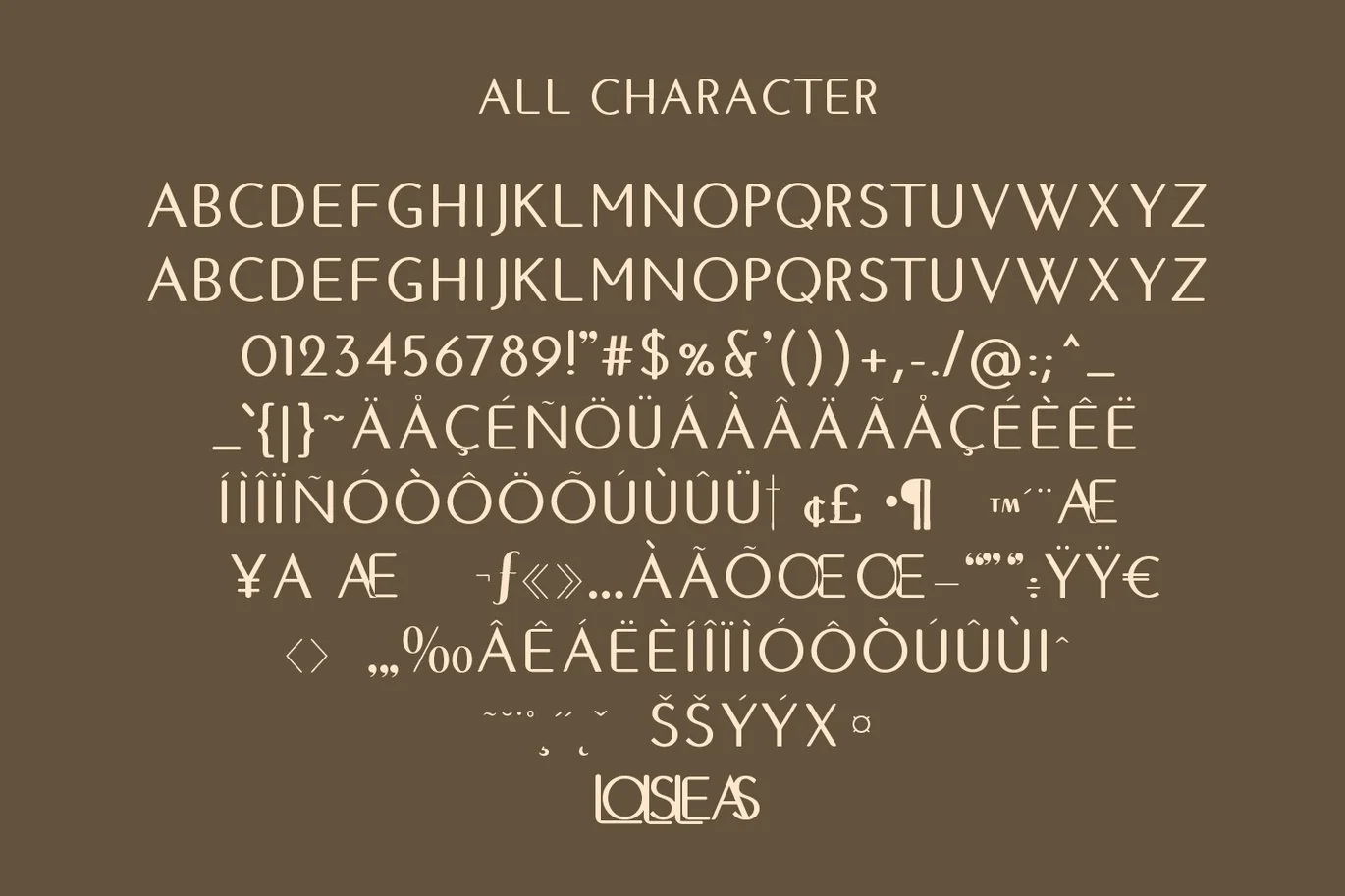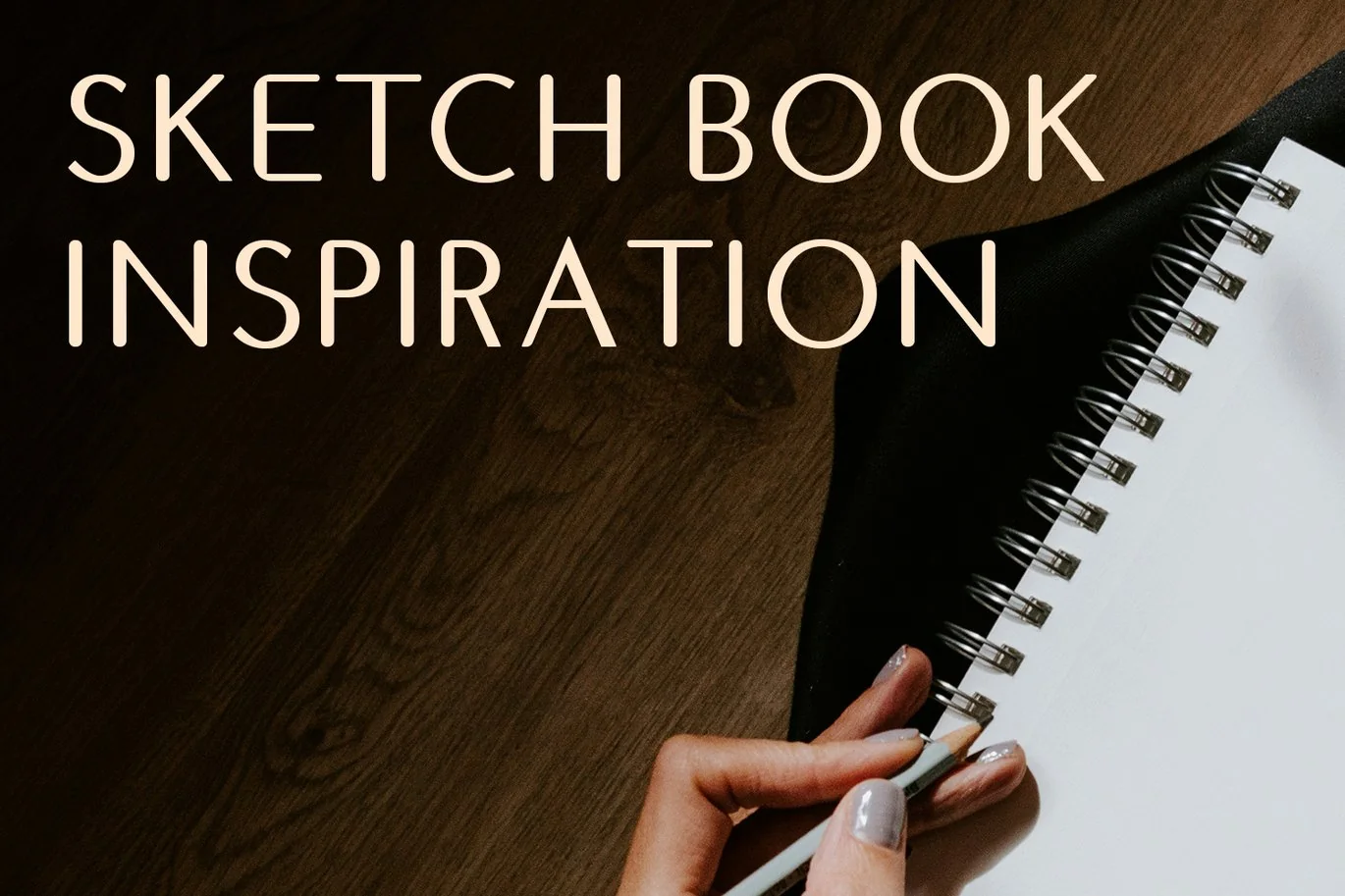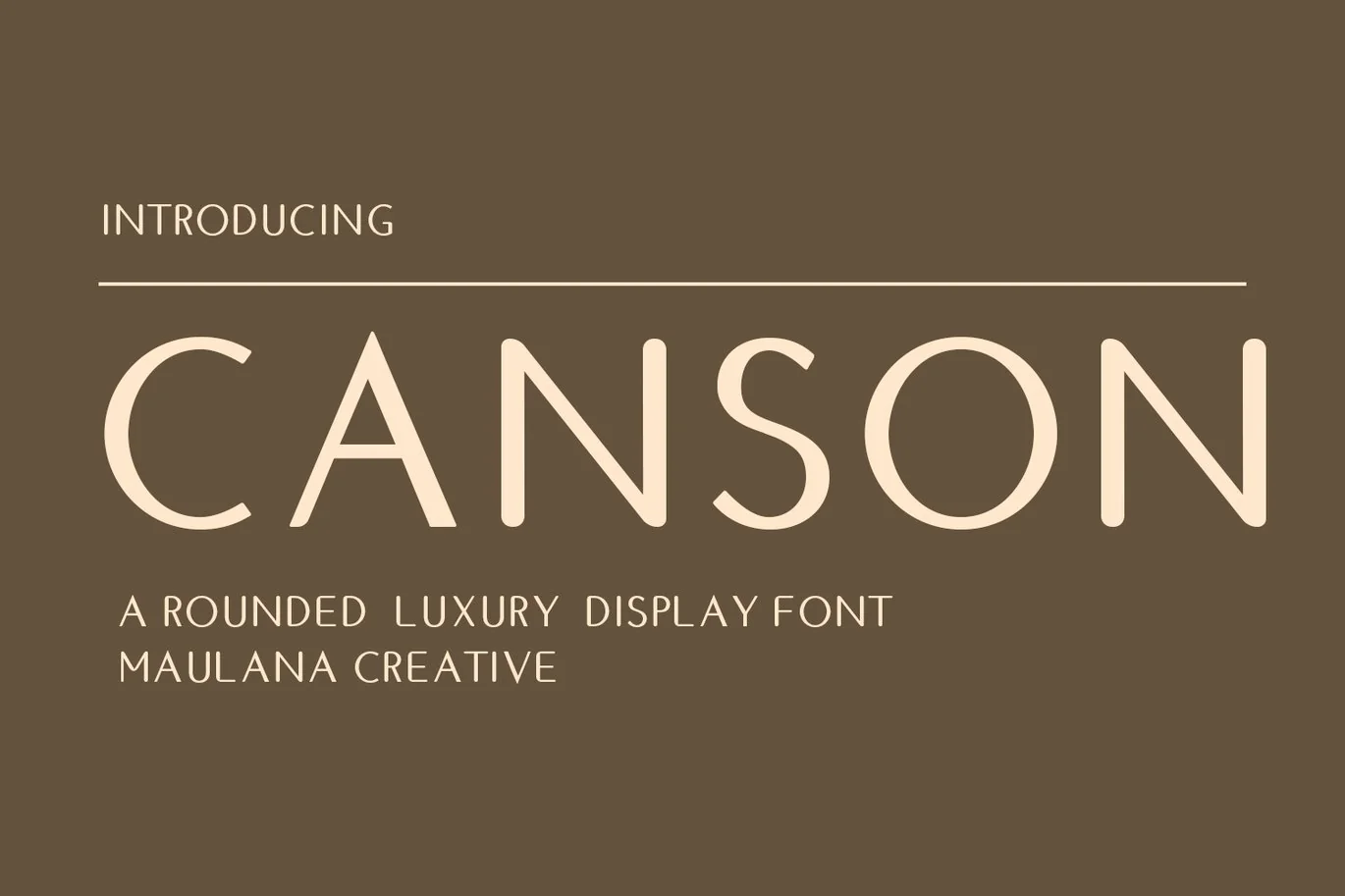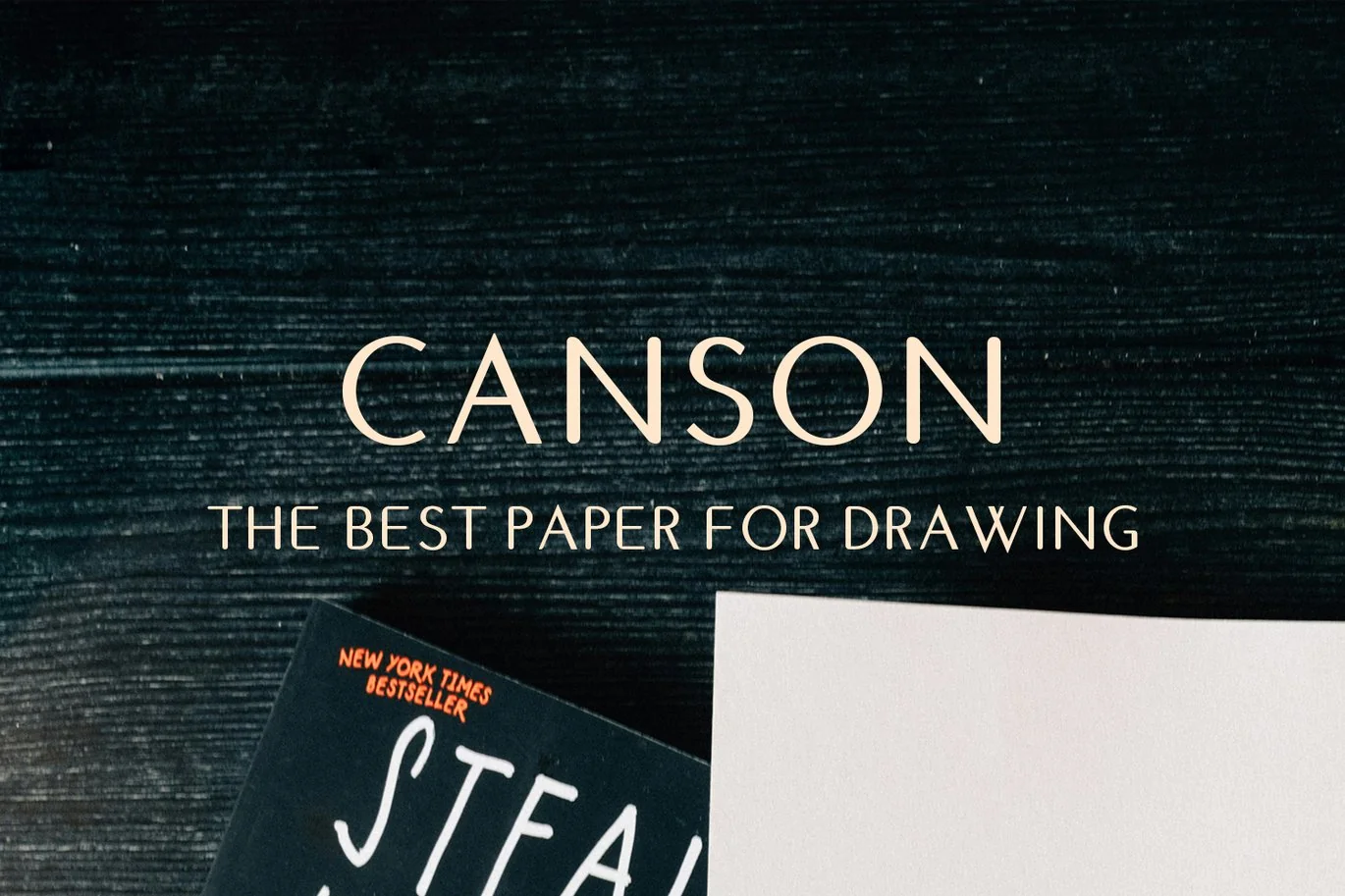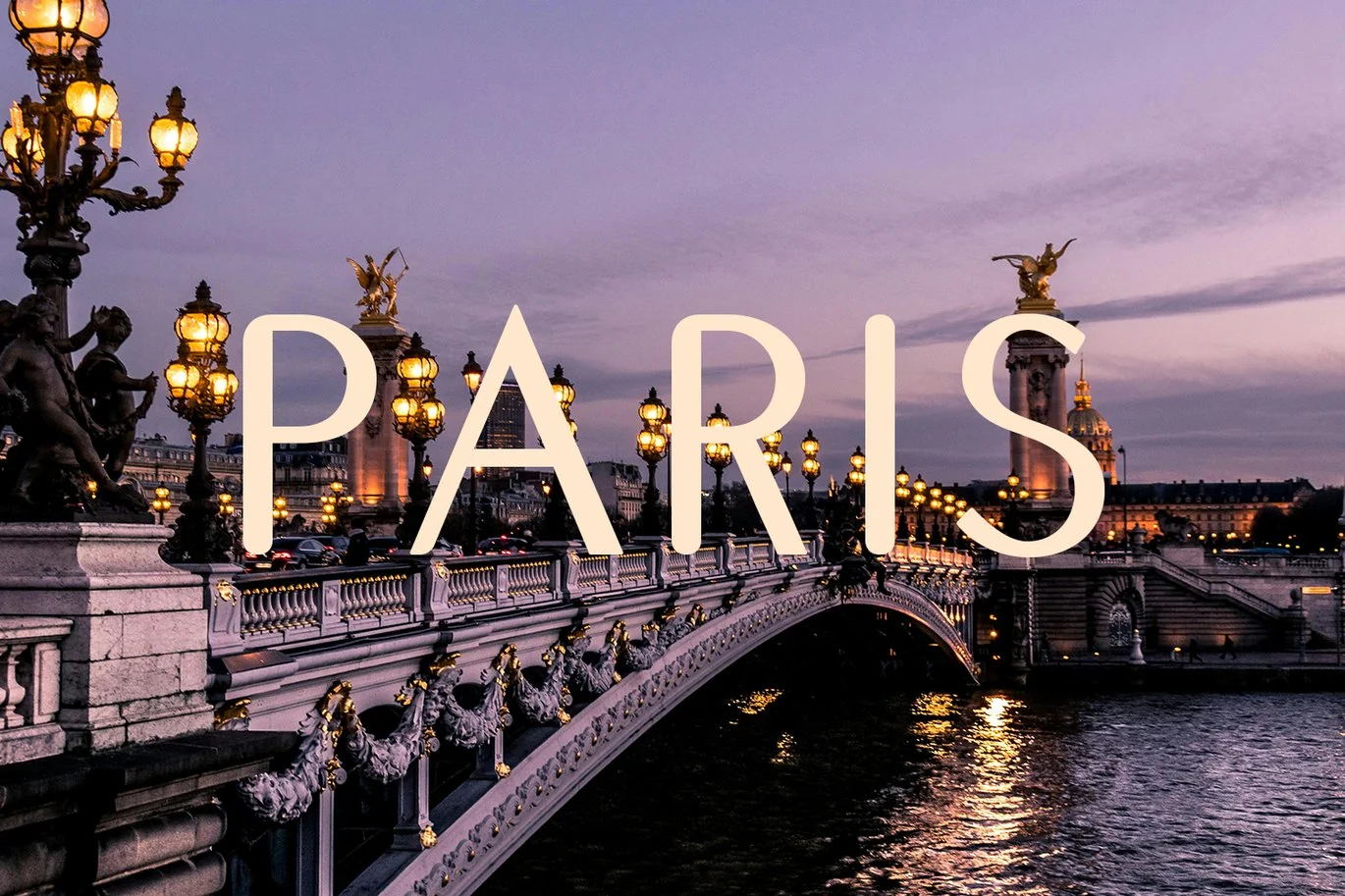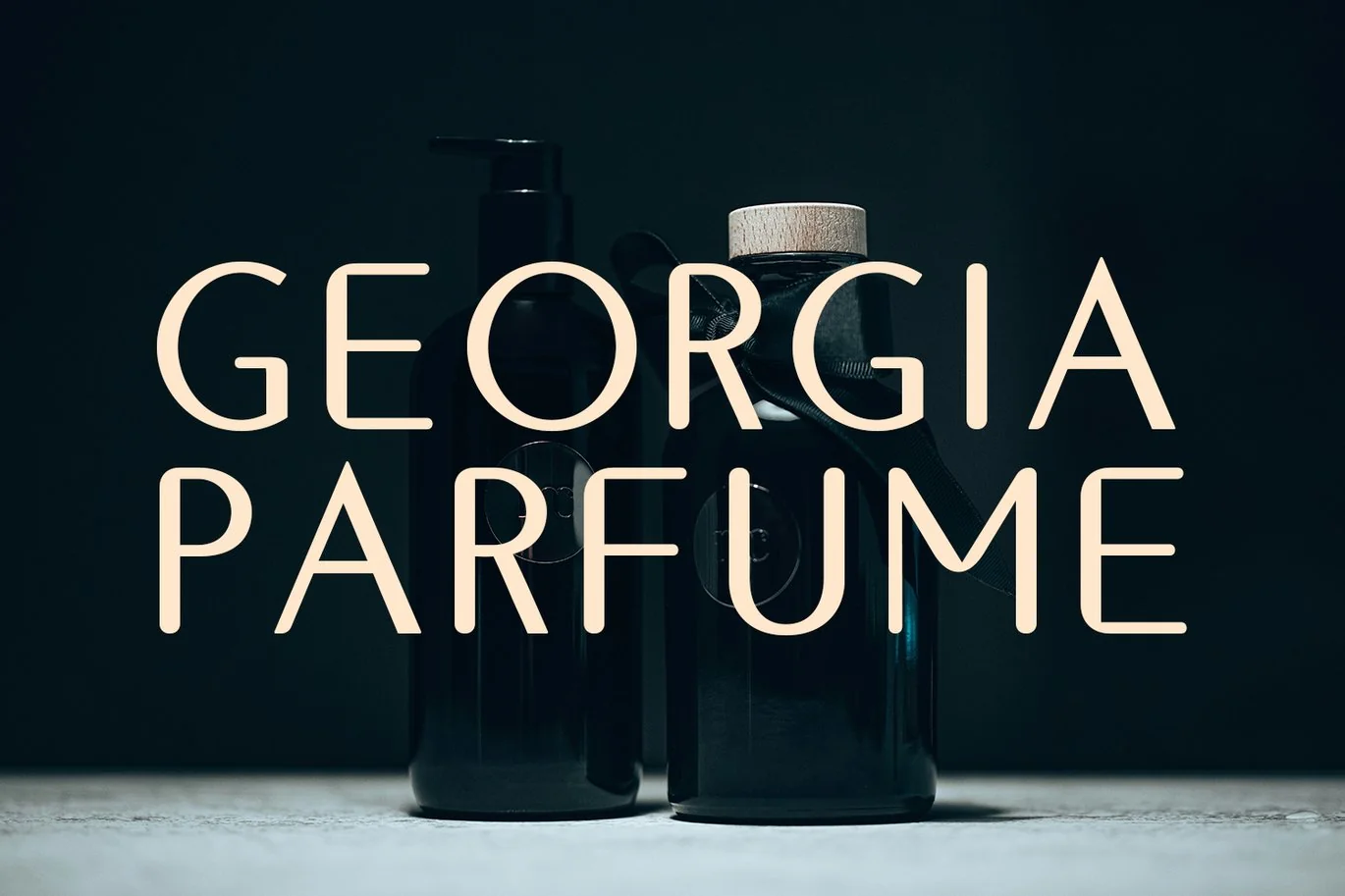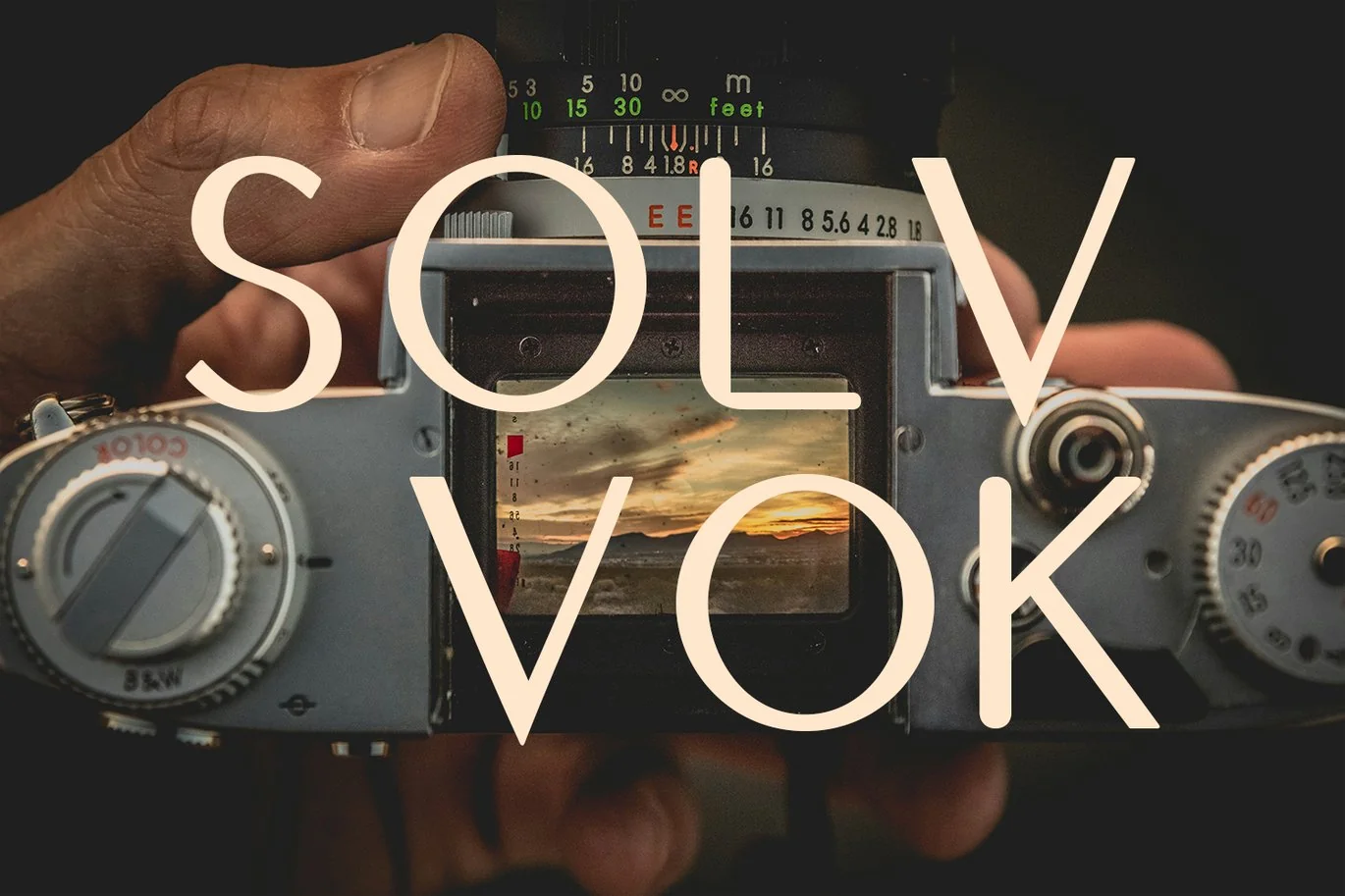
Canson Rounded Luxury Display Font
Canson is a rounded luxury sans display font. With bold tall and sharp stroke, fun character with a bit of ligatures and alternates. To give you an extra creative work. Canson font support multilingual more than 100+ language. This font is good for logo design, Social media, Movie Titles, Books Titles, a short text even a long text letter and good for your secondary text font with sans or serif. Make a stunning work with Canson font.